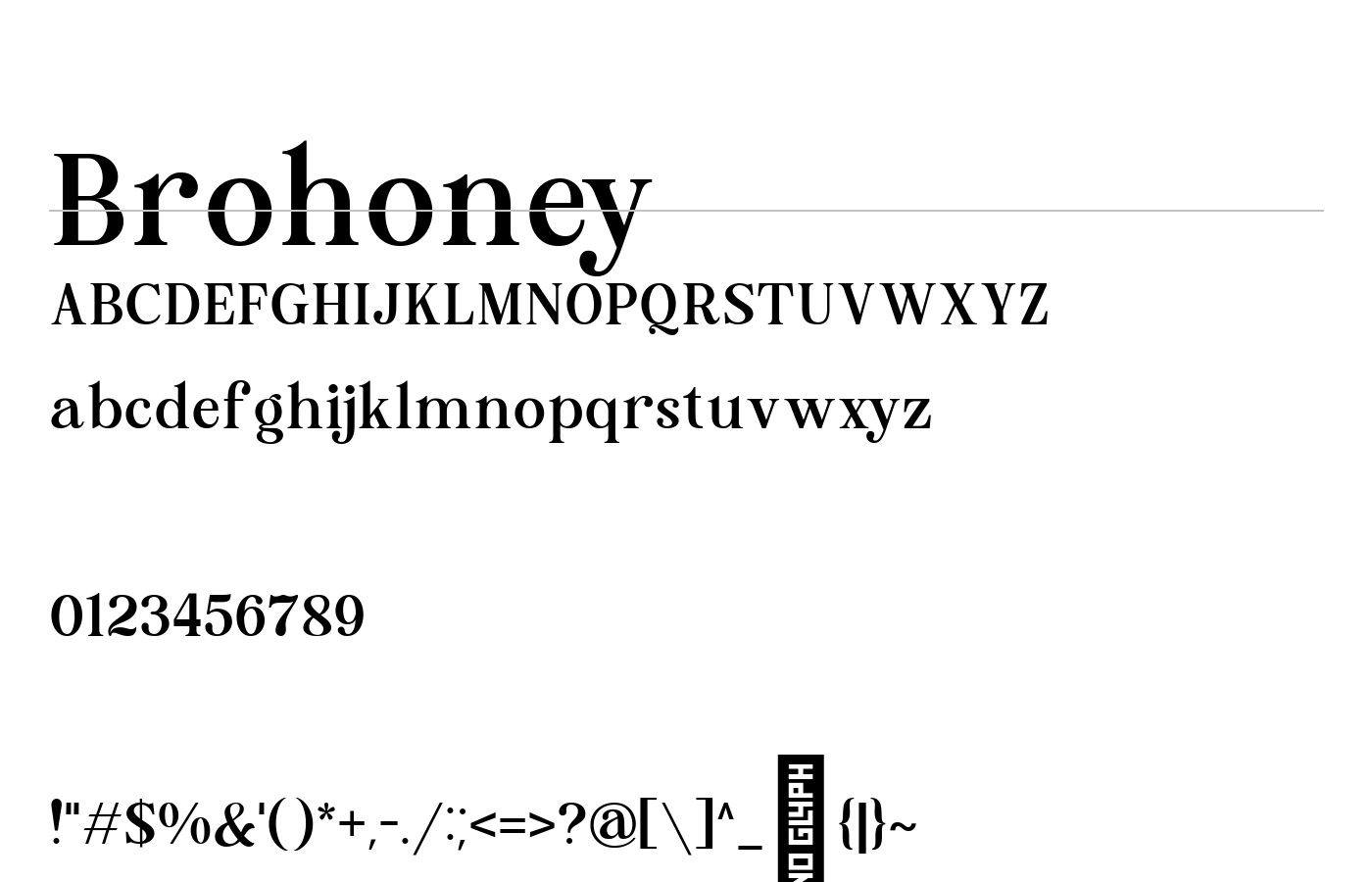
Brohoney is a refined serif font with a classic, elegant feel characterized by its medium contrast between thick and thin strokes and delicate, bracketed serifs. Its tall x-height and balanced proportions make it suitable for both headlines and body text, offering a timeless yet modern appeal that works well for editorial design, fashion branding, and sophisticated packaging. This font communicates a sense of professionalism and style, ideal for projects seeking a polished and graceful aesthetic.
Brohoney Font
About Brohoney Font